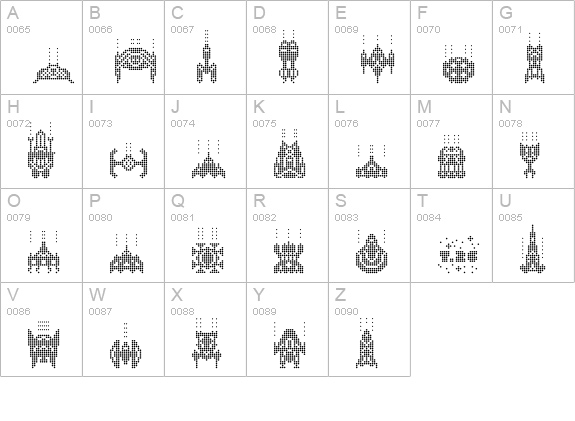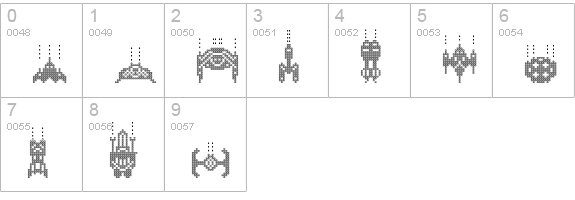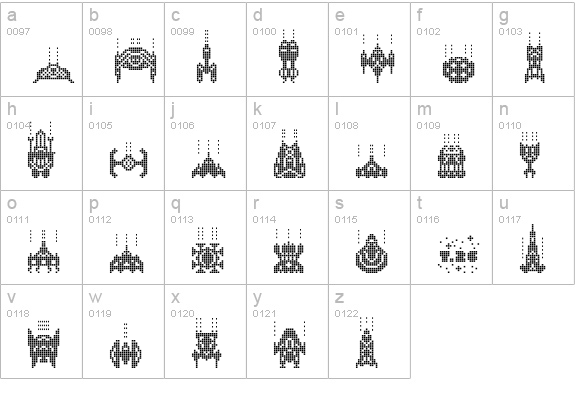
ItsOVER-Captain Font Details
Introducing ItsOVER-Captain, a captivating and dynamic font that is bound to leave a lasting impression. With its bold and commanding presence, this font is perfect for designs that demand attention and convey a sense of strength and power. ItsOVER-Captain boasts a unique combination of sleek lines and sharp edges, creating a visually striking aesthetic that is sure to stand out from the crowd. Whether used for headlines, logos, posters, or any other creative project, this font exudes confidence and vitality. One of the most remarkable aspects of ItsOVER-Captain is that it is available for free! Yes, you read that right. This incredible font can be freely downloaded at FontsMarket.com, ensuring that designers and enthusiasts alike can enjoy its exceptional qualities without any cost. With ItsOVER-Captain, you not only get a visually stunning font, but also the freedom to use it without any constraints. Let your imagination run wild as you explore the endless possibilities this font offers, and watch as your designs come to life with a touch of boldness and originality. Download ItsOVER-Captain today from FontsMarket.com and experience the power of this remarkable font firsthand. Embrace the freedom of creativity and make a statement with every stroke of ItsOVER-Captain.